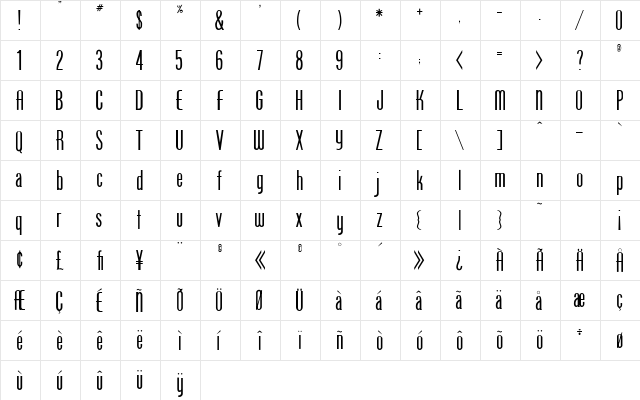
Phoenix One Regular
Design Context for Phoenix One Typeface
Phoenix One is a composed and adaptable typeface that performs quietly and consistently across a wide range of design contexts.